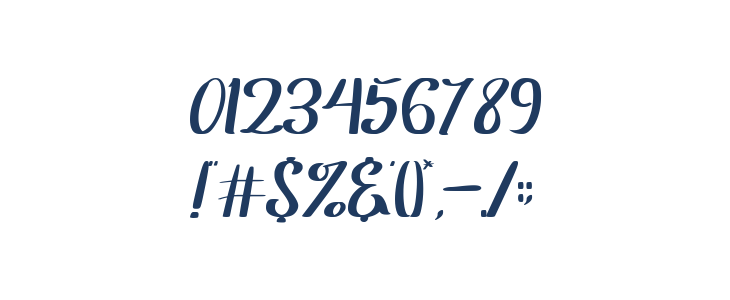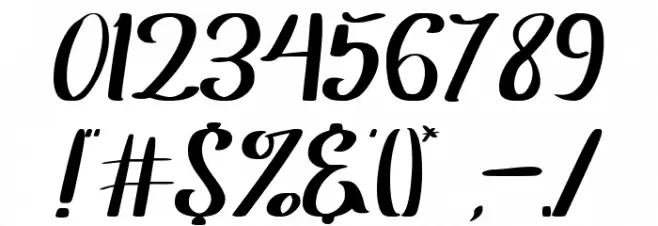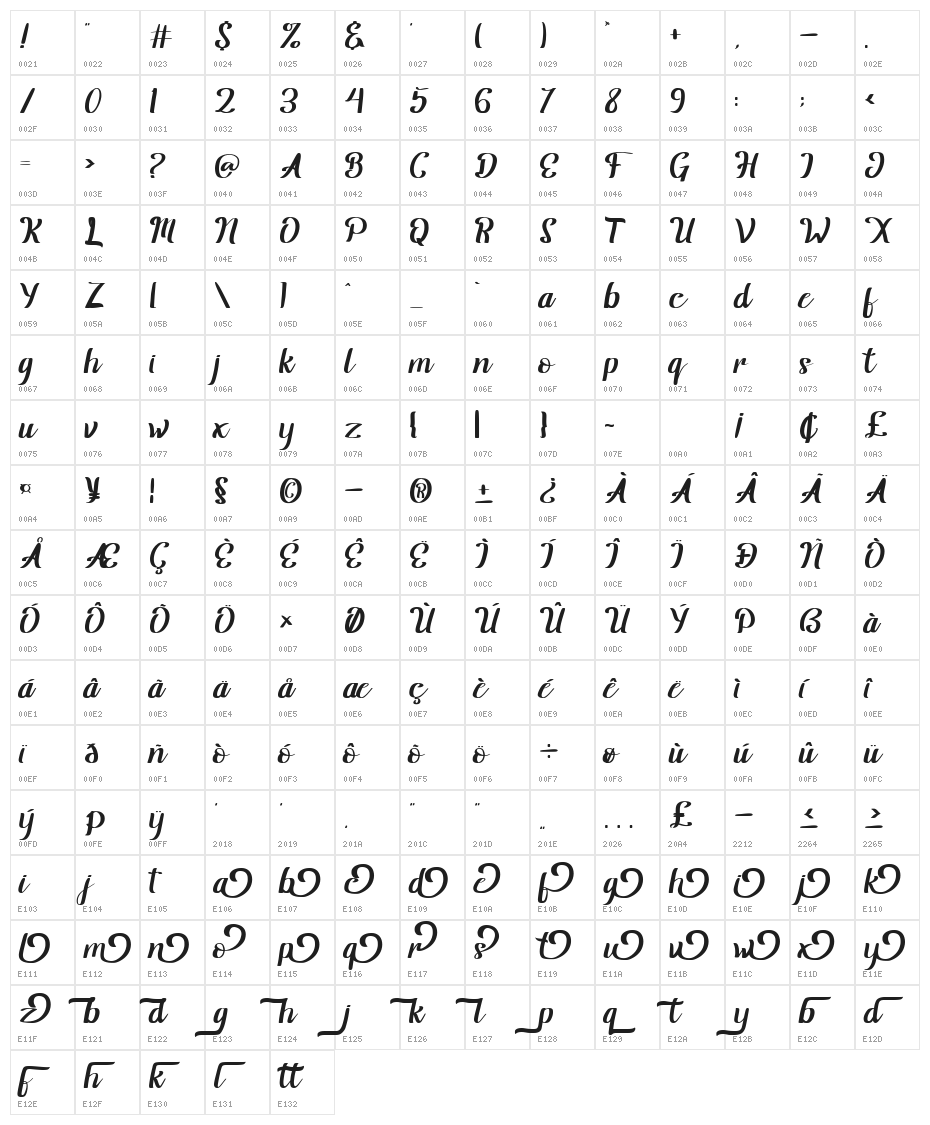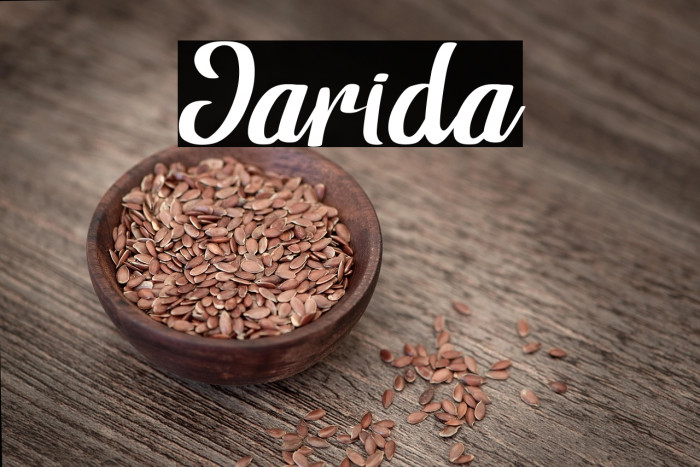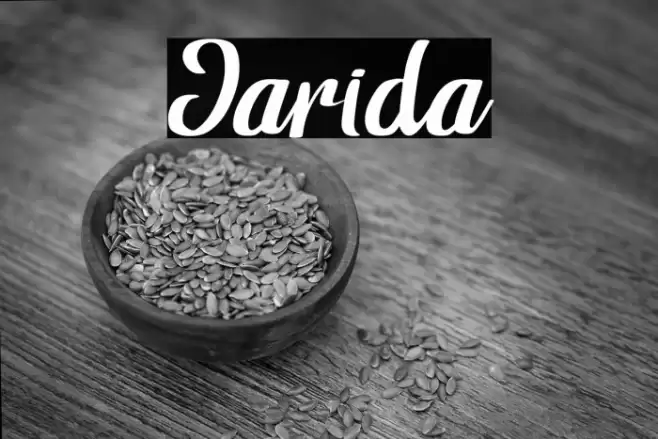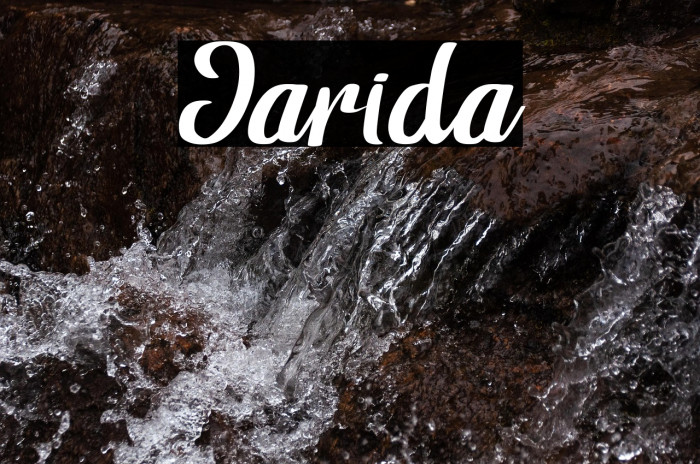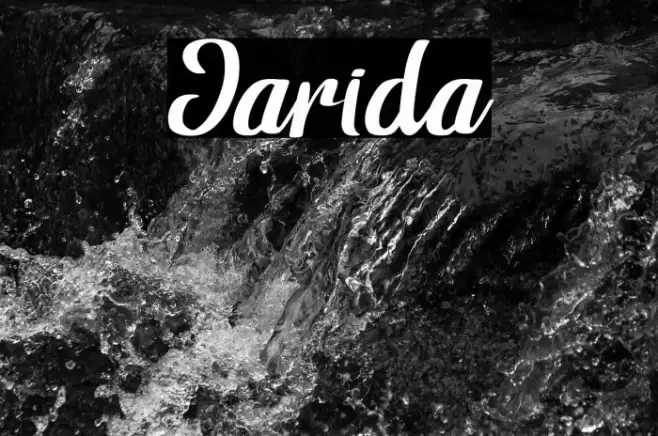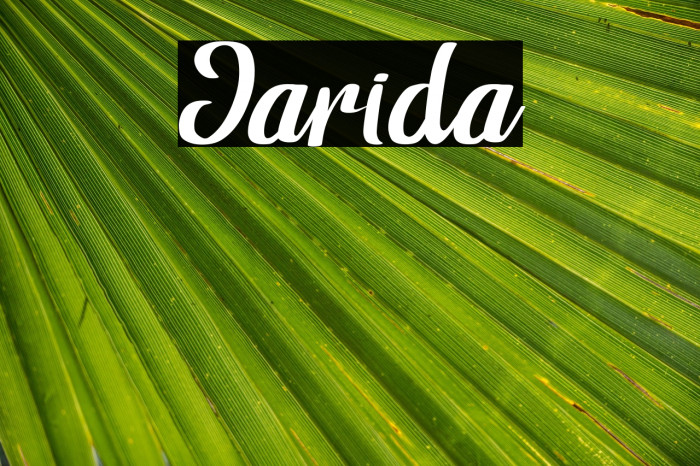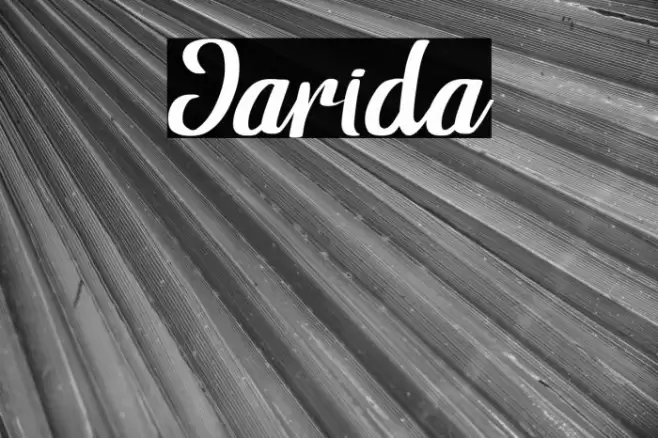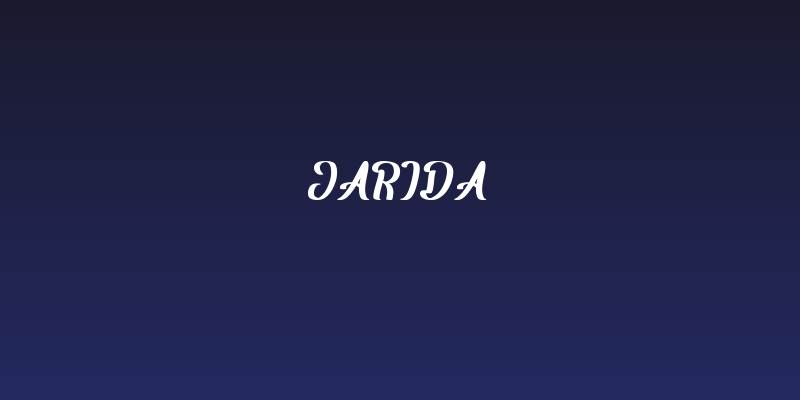
Jarida Font
Jarida Description
This font features a dynamic and flowing script style, characterized by its elegant curves and smooth connections between letters. The uppercase letters exhibit a bold presence with sweeping lines and a slight slant, while the lowercase letters maintain a cohesive and fluid appearance. The numerals are designed with a similar flair, ensuring consistency throughout. Special characters are crafted with the same attention to detail, adding a touch of sophistication. The overall design is both stylish and legible, making it suitable for a variety of creative applications.
| Use Case | Logos, Invitations, Branding |
| Proposed Projects | Ideal for wedding invitations, branding, greeting cards, and elegant packaging designs. |